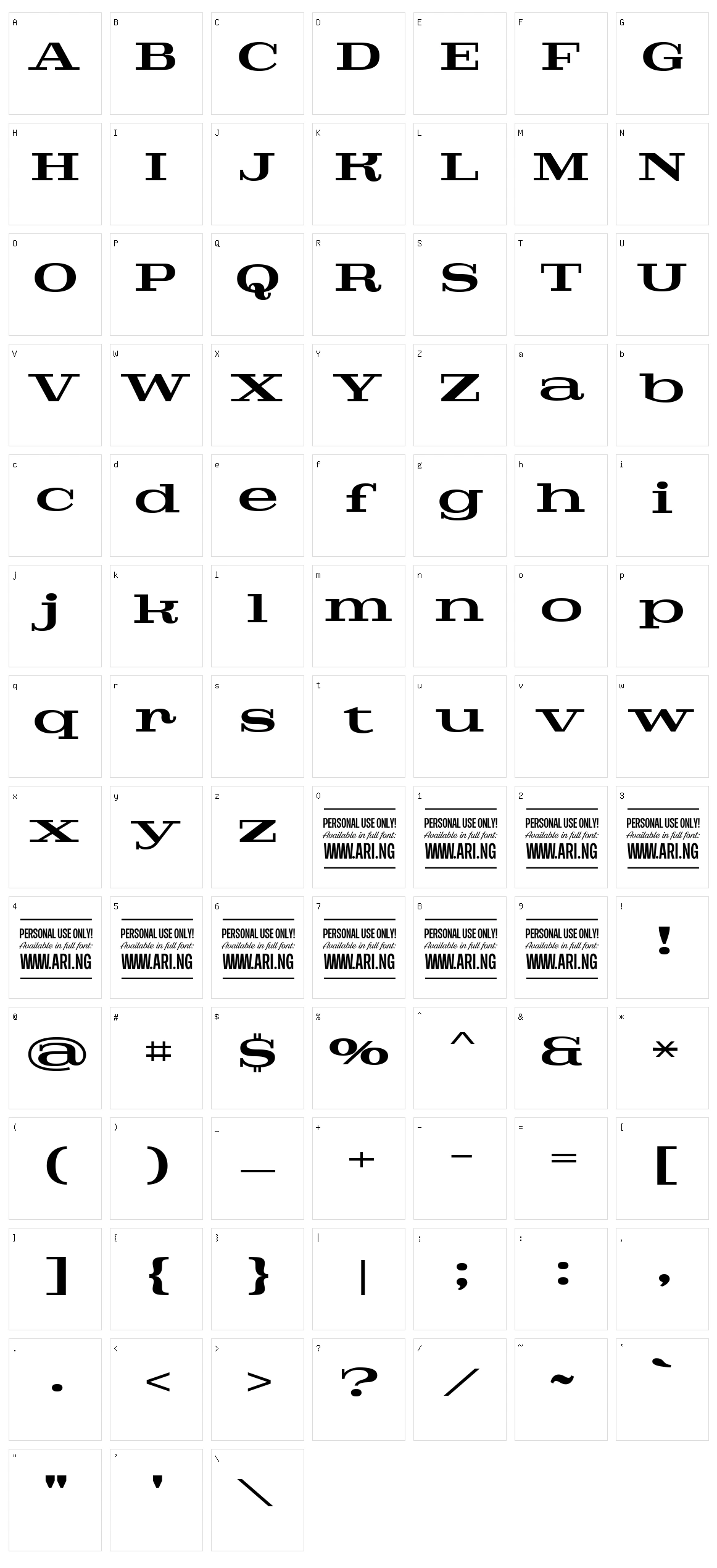
Pigeon is a high-quality serif font in six styles.
It comes in the weights Pigeon Light, Pigeon Medium and Pigeon Bold; each of the weights as Italic.
The typeface is created by Måns Grebäck, contains hundreds of glyphs and multiple ligatures.
Its wide characters are perfect to draw attention, and they have smooth and well-designed curvatures.